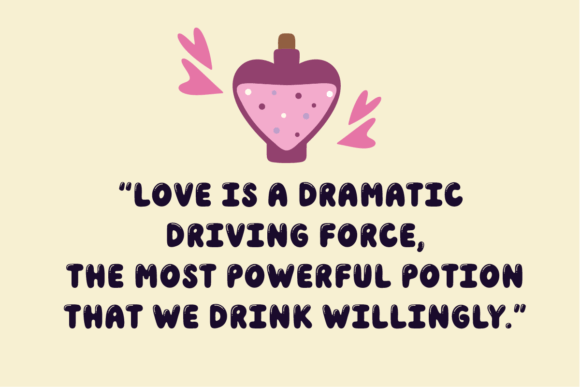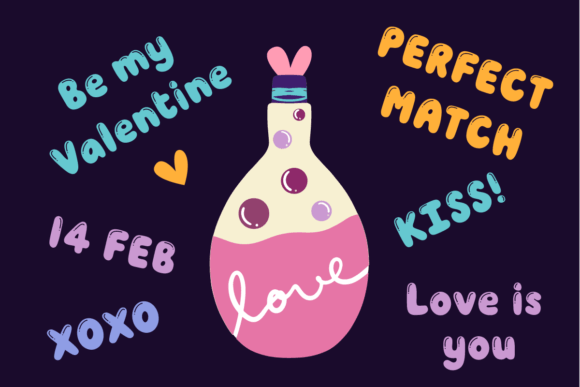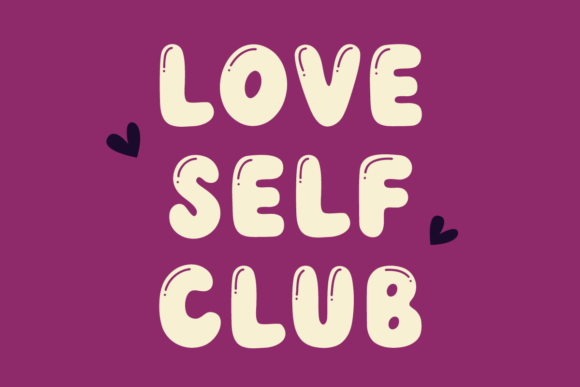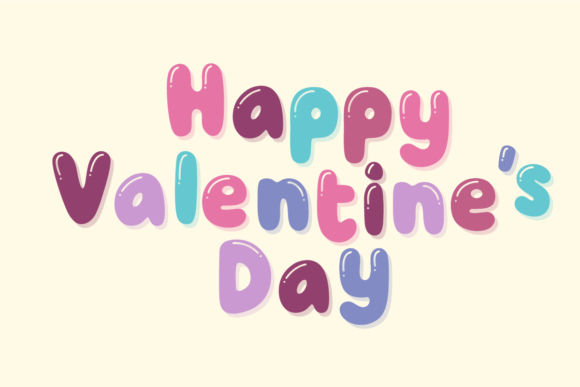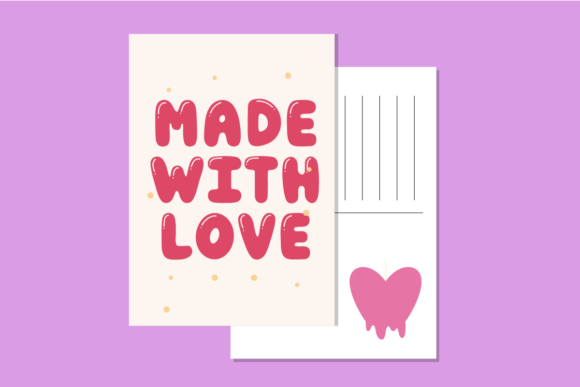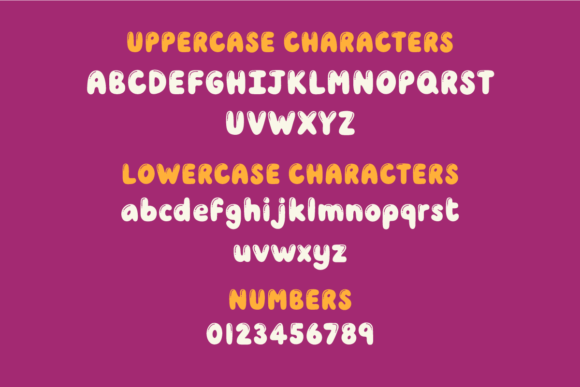
Love Potion Font
Love Potion is a playful bubble font style. Perfect for circuit projects, shirts, retro designs, invitation cards, mugs, stickers, playful quotes, creating posters, logos, greeting cards, packaging, decorating the illustration and so much more!